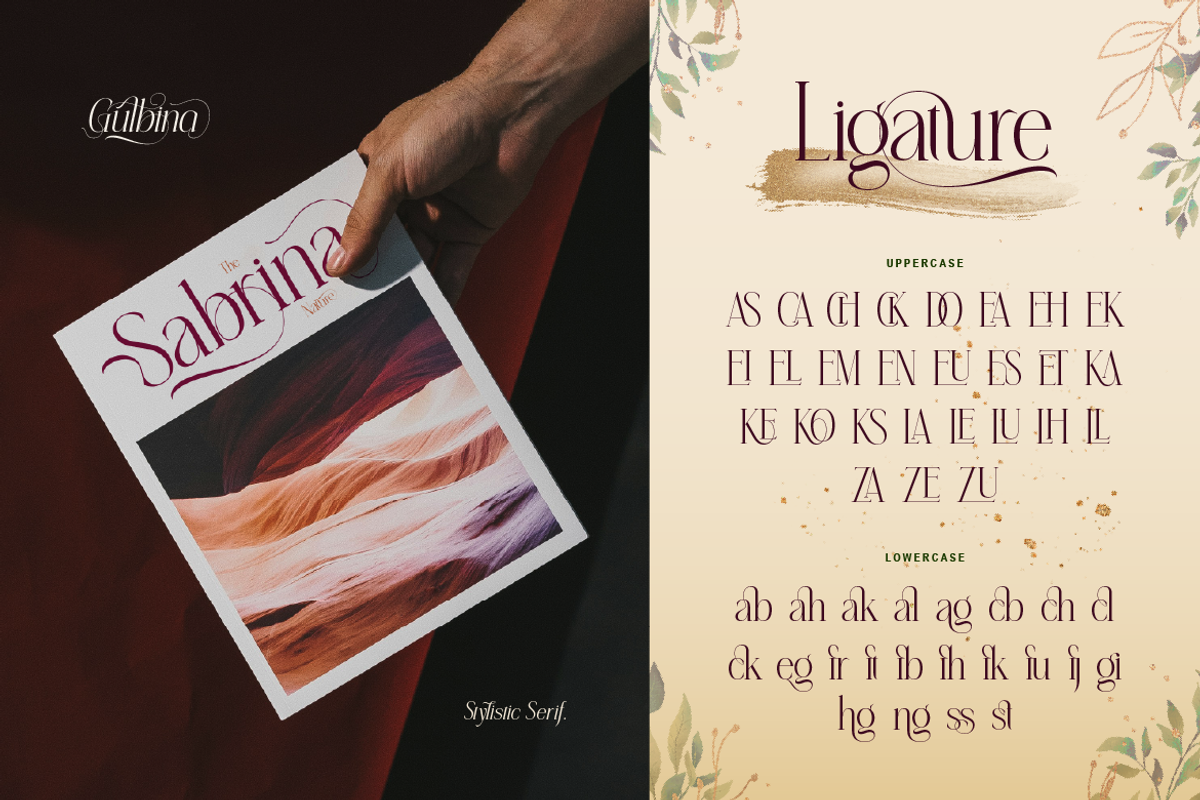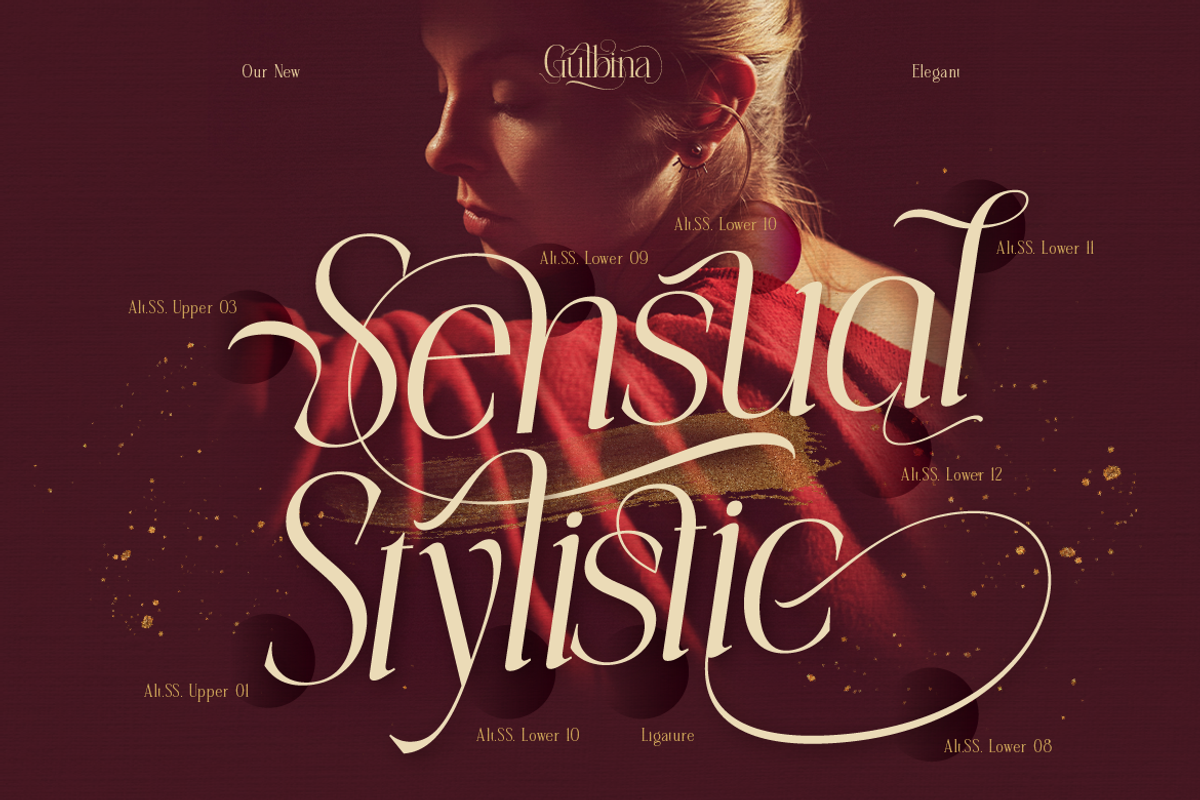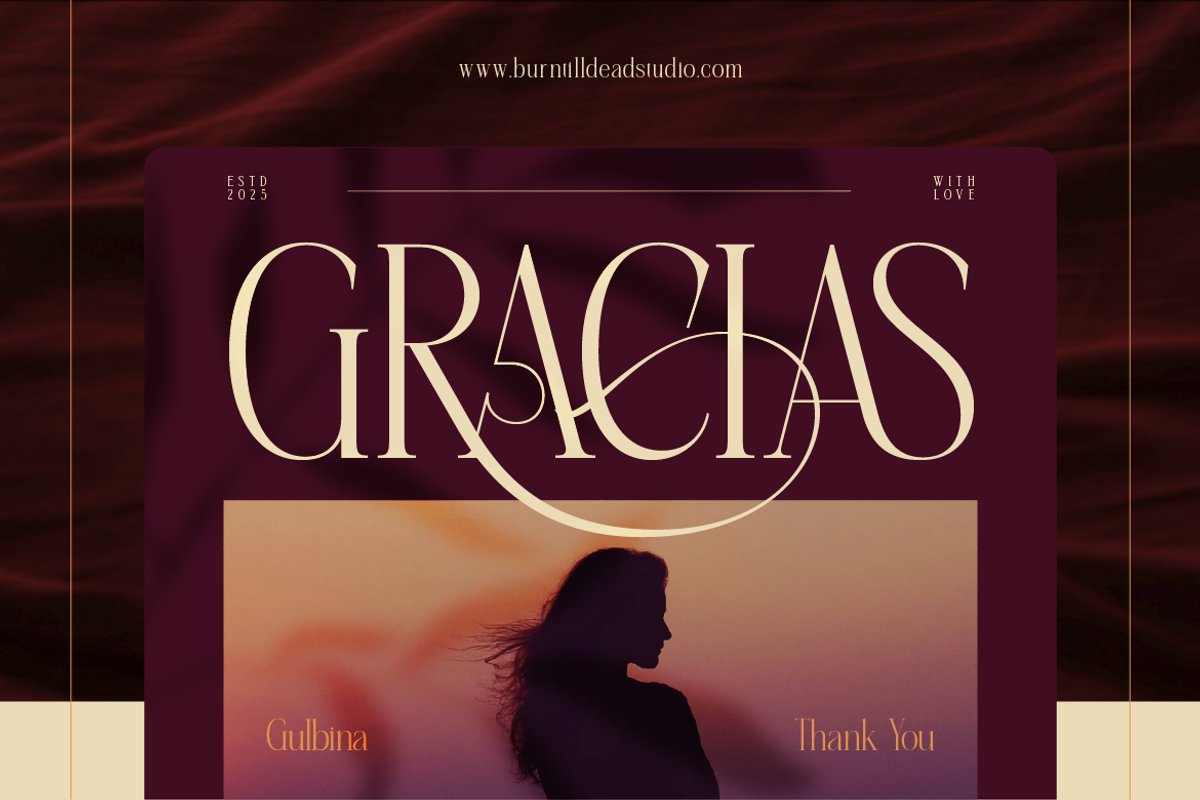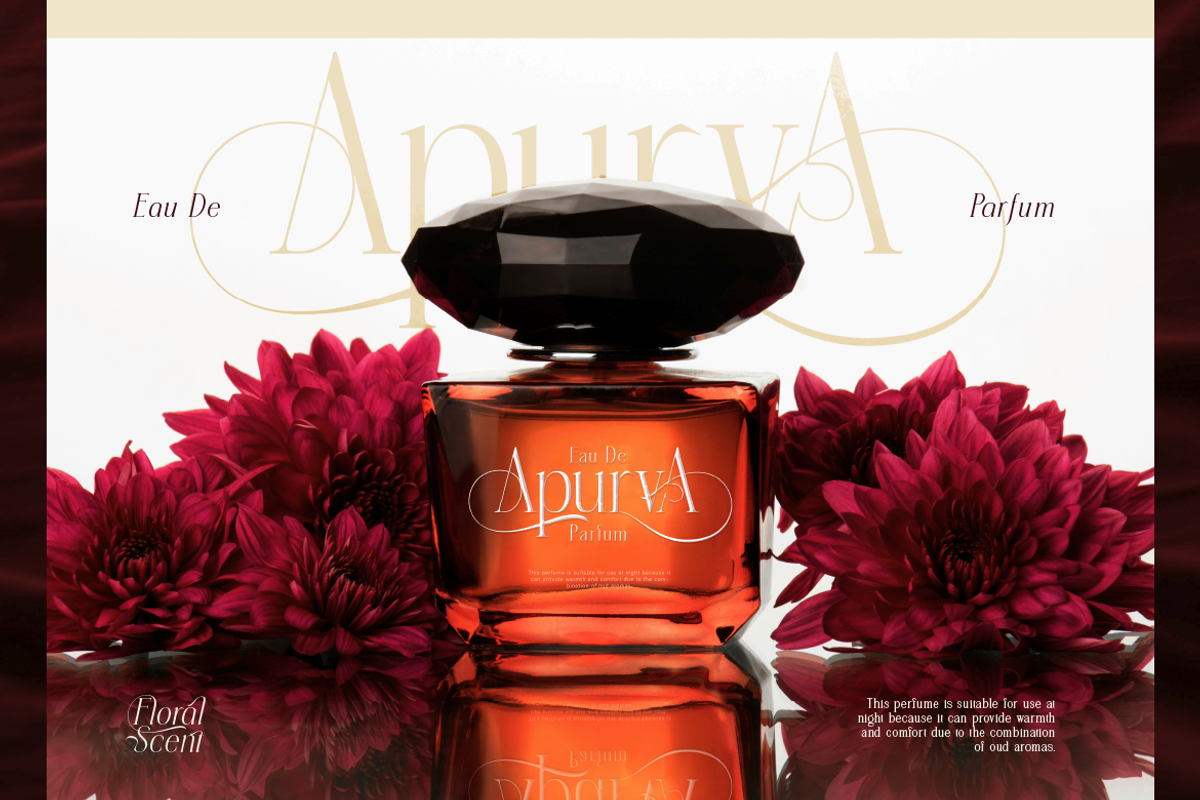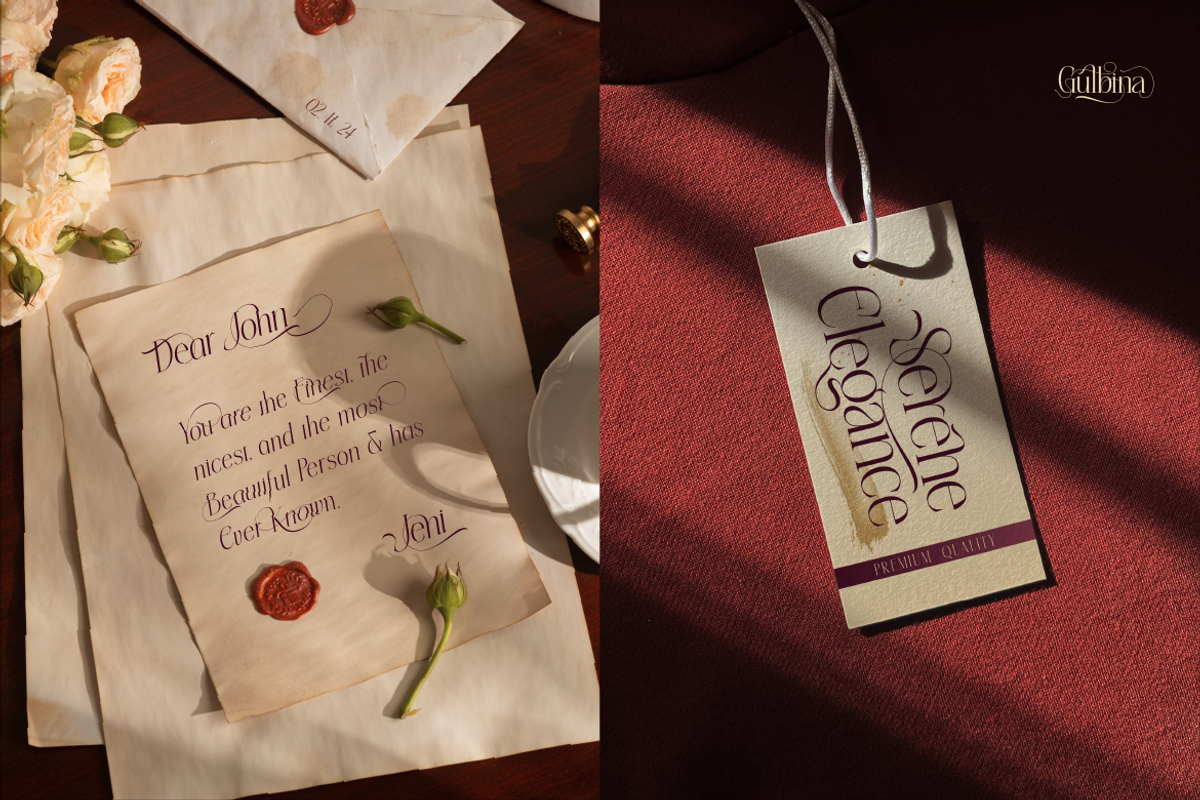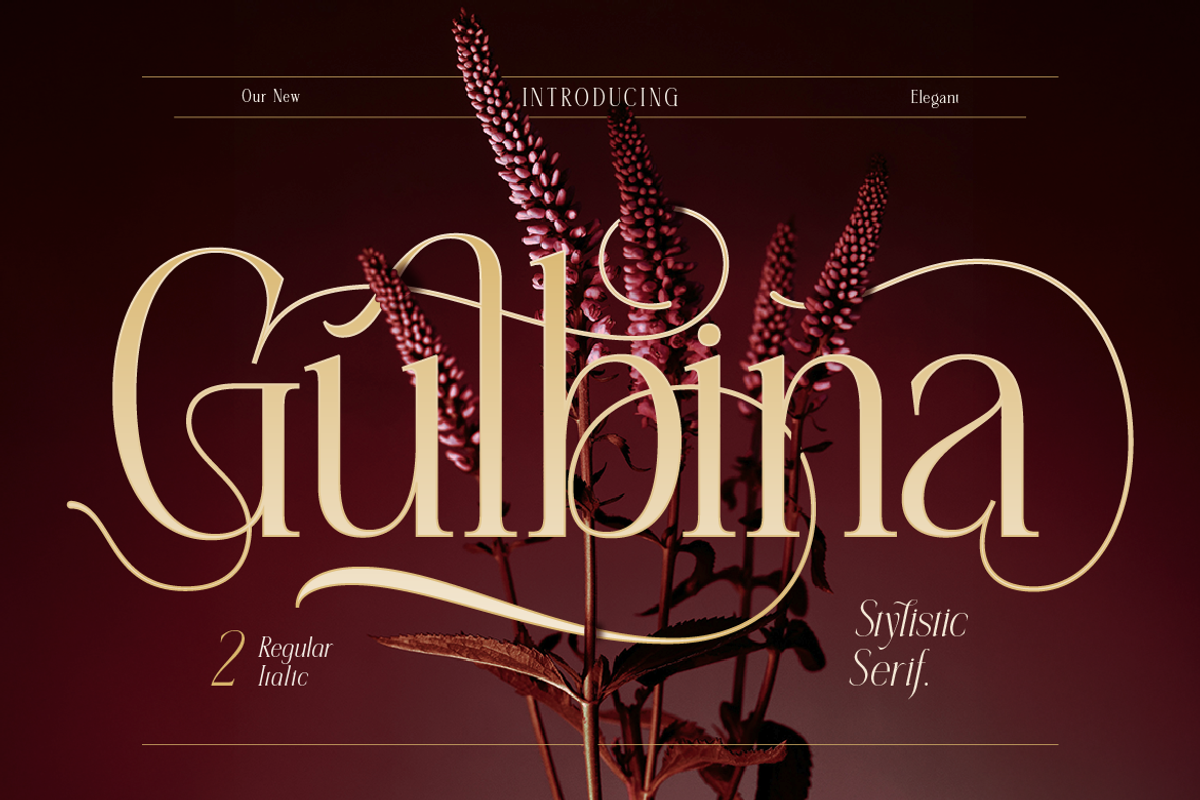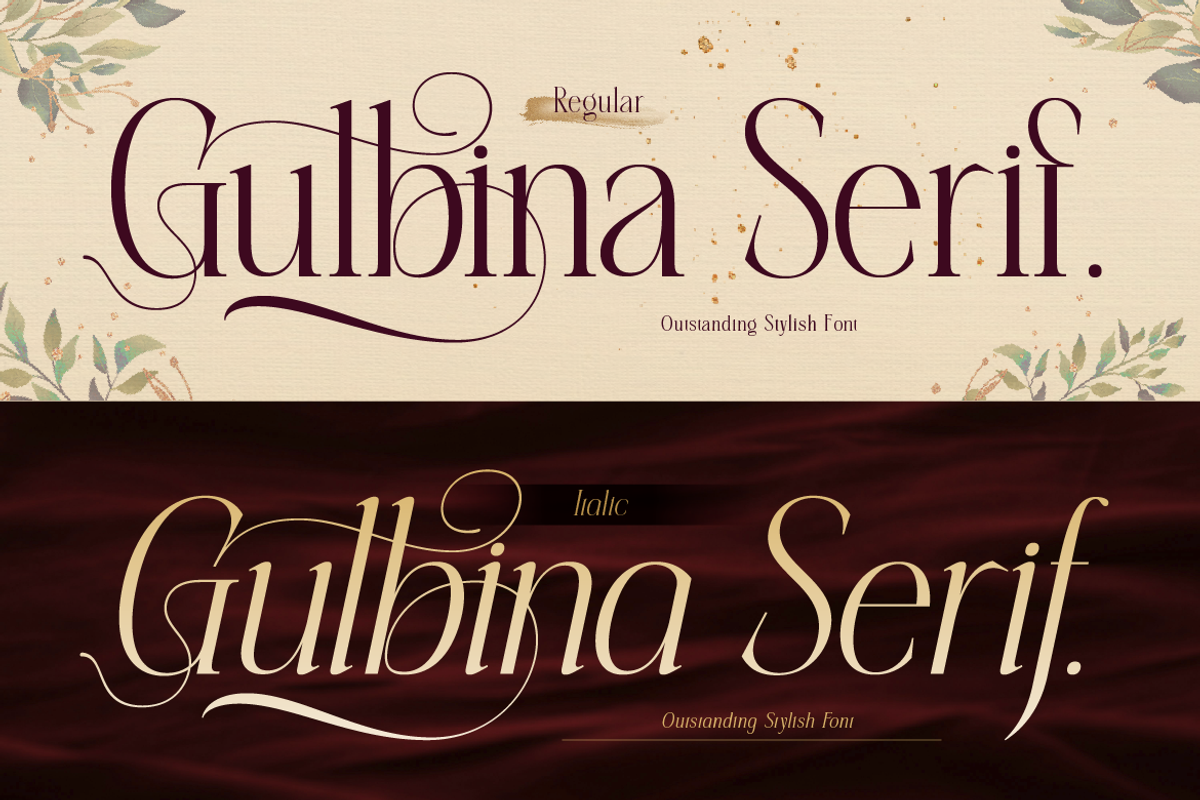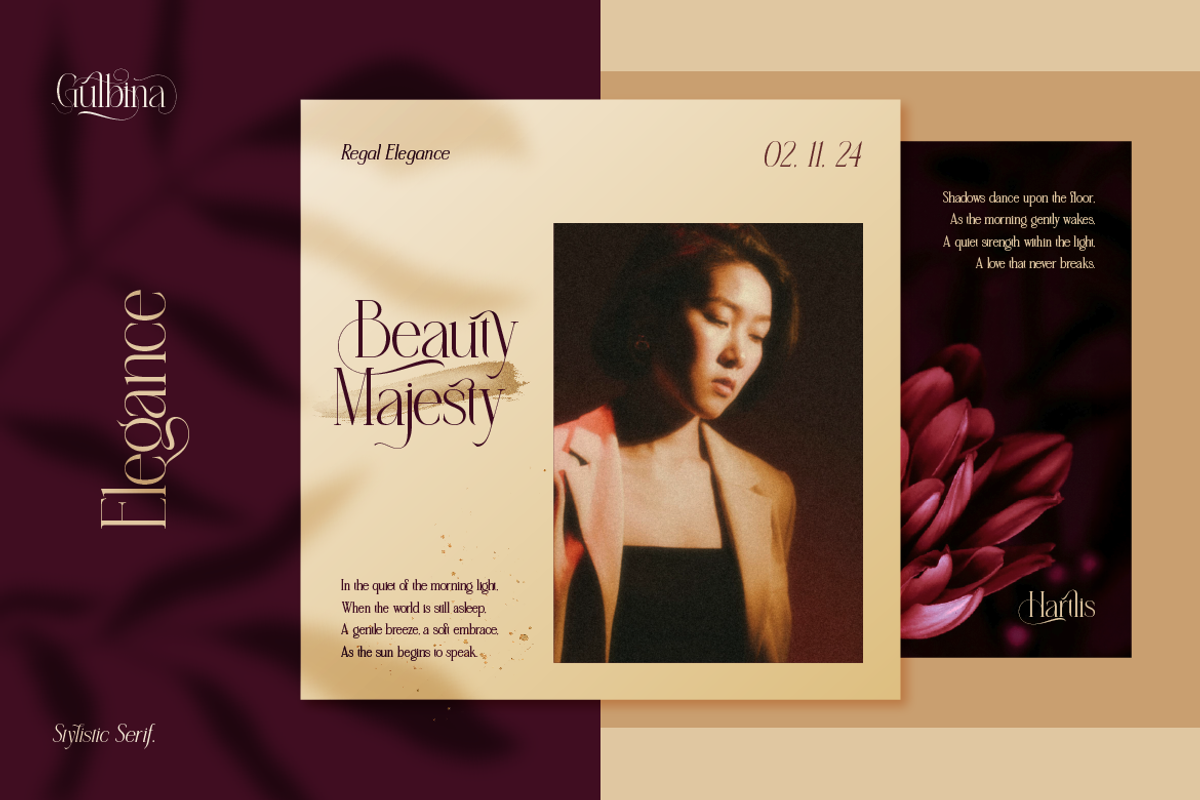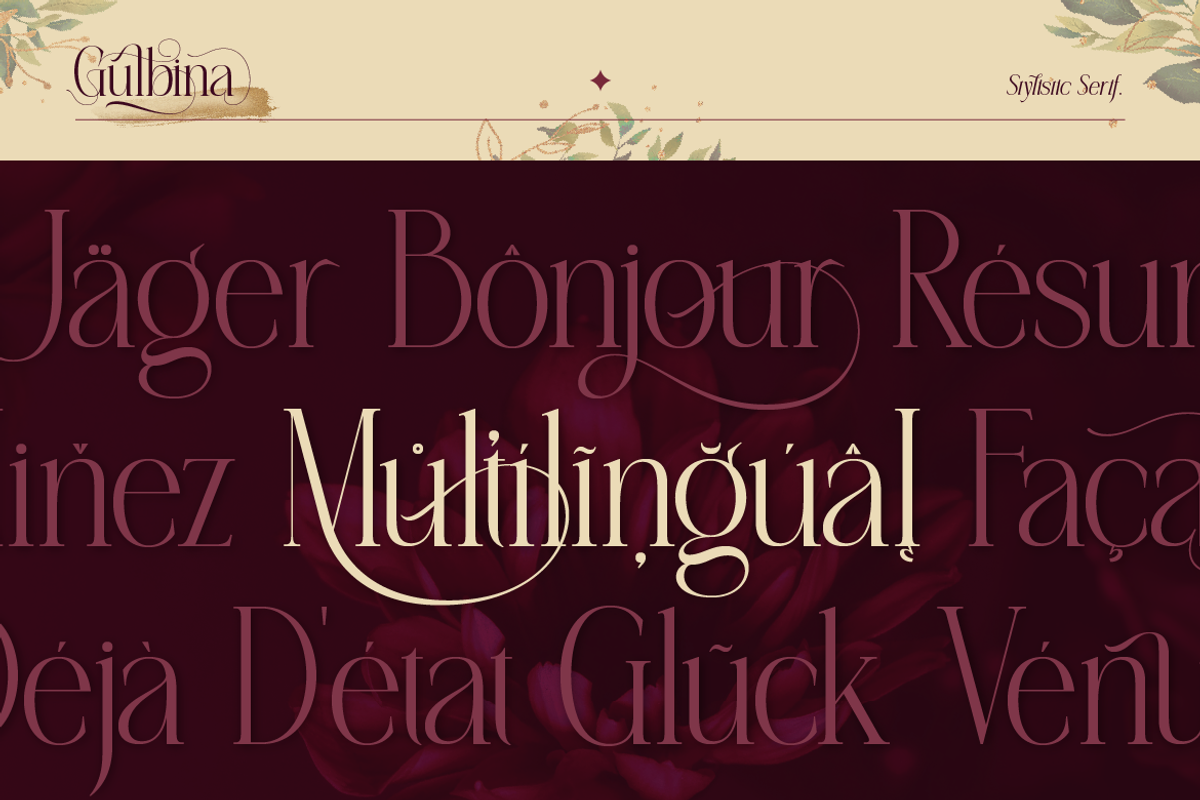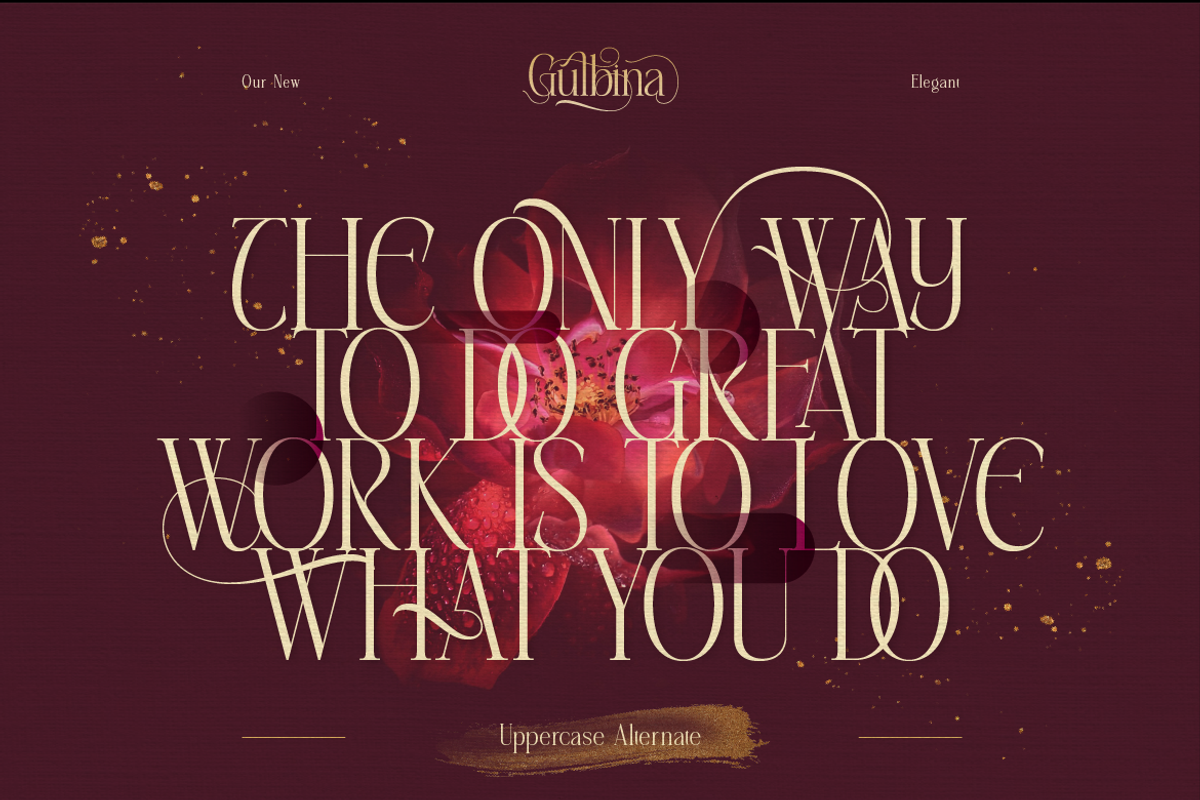
Gulbina
Discover the elegance of Gulbina, a serif font with stunning visual appeal and artistic details in every letter. Gulbina comes in two styles: Regular and Italic, featuring alternates that add a touch of elegance, professionalism, and sophistication. This font is the perfect choice for design projects that require a modern classic feel, whether for logos, product packaging, magazines, luxury branding, social media, wedding invitation and more. With its timeless character, Gulbina helps create a strong visual identity and leaves a lasting impression.
- A - Z set (Uppercase & Lowercase)